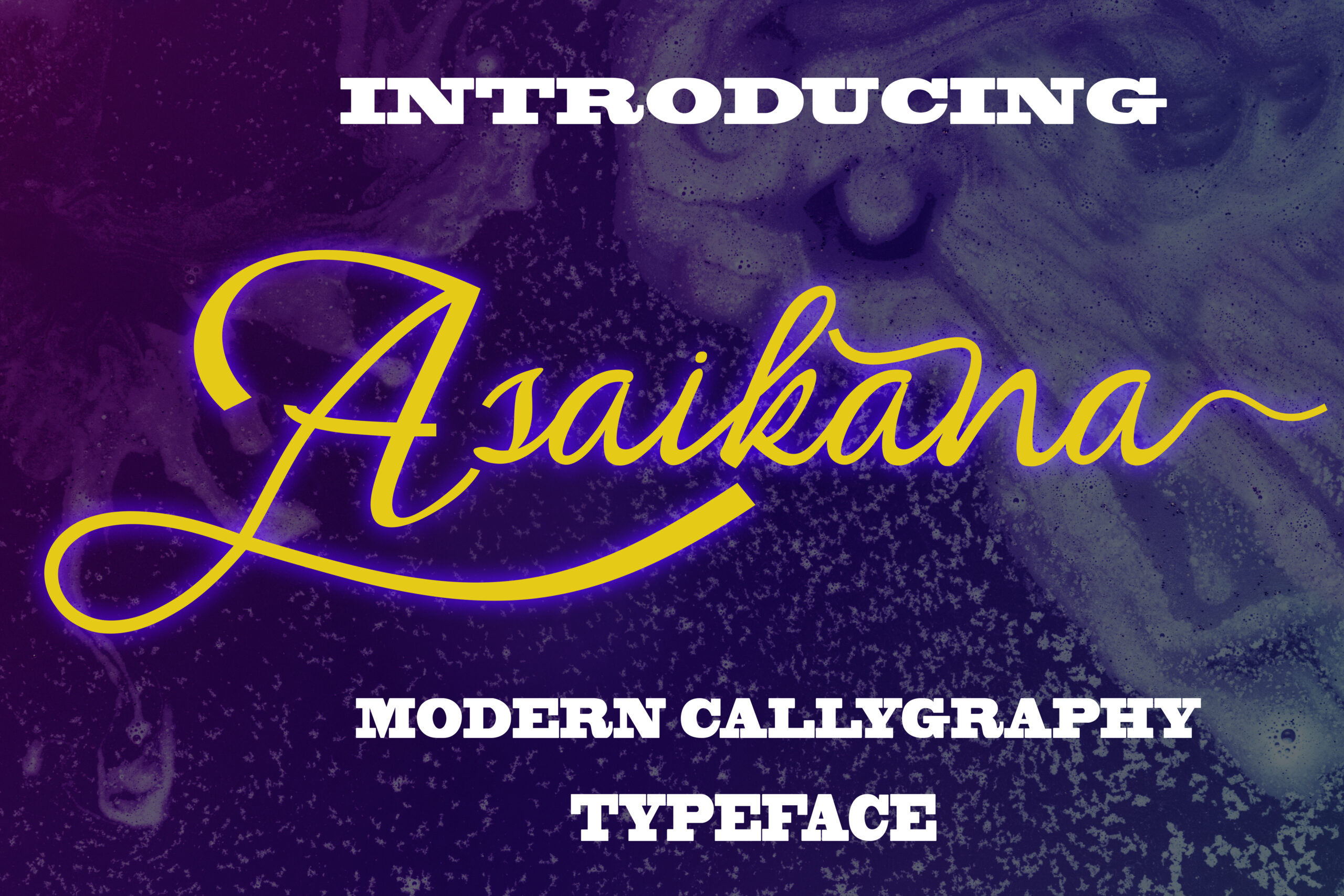
Asaikana Font
About Asaikana Font
Asaikana is a beautiful modern calligraphy font, designed to give your projects an elegance and easy feel. This font has a unique appeal that is both natural and classic.